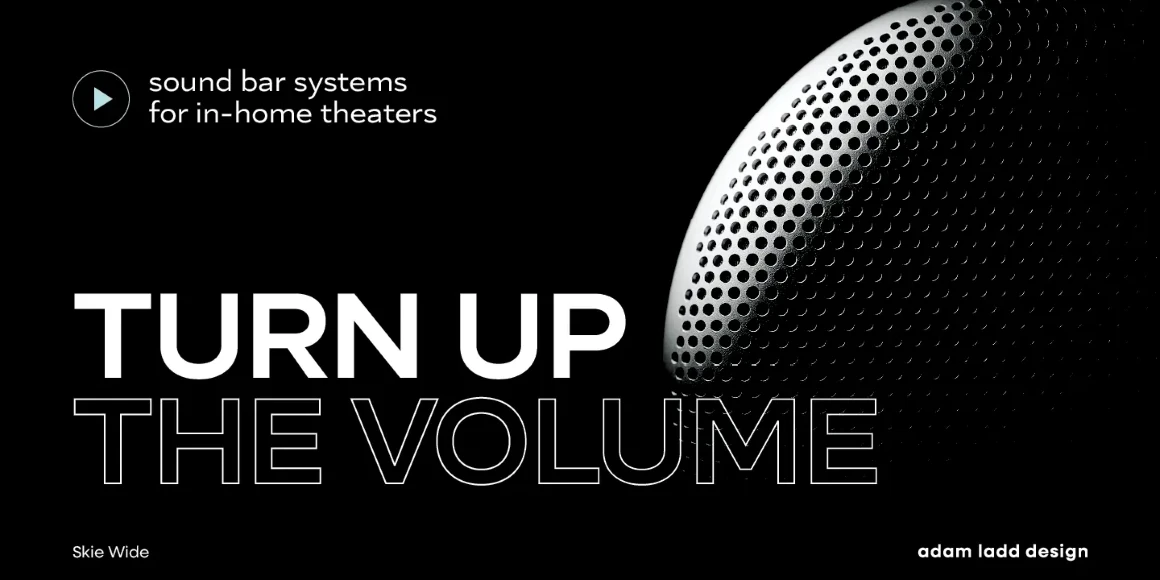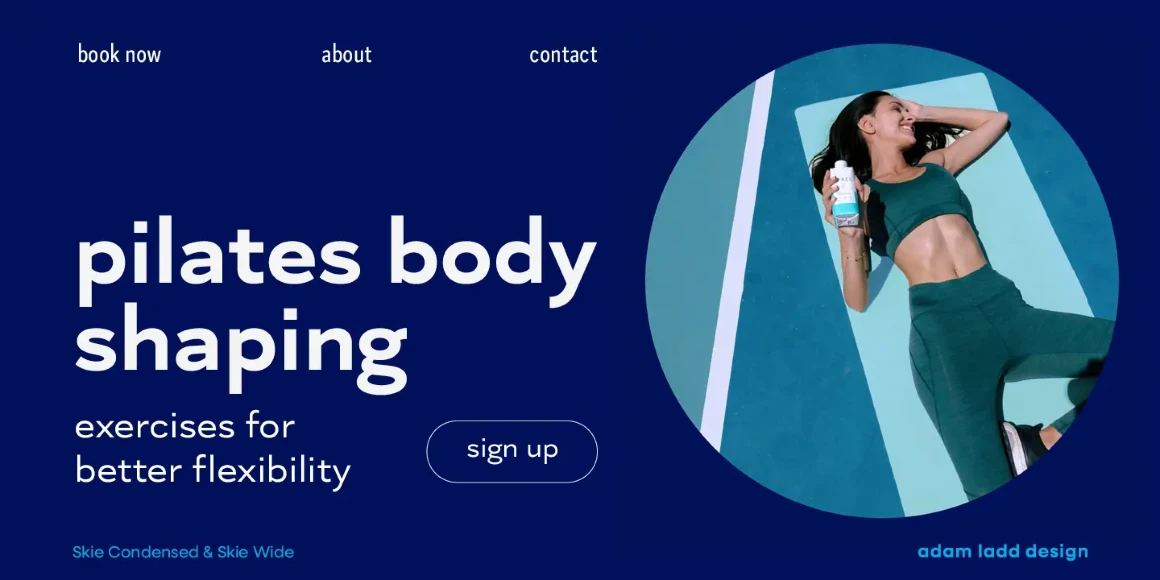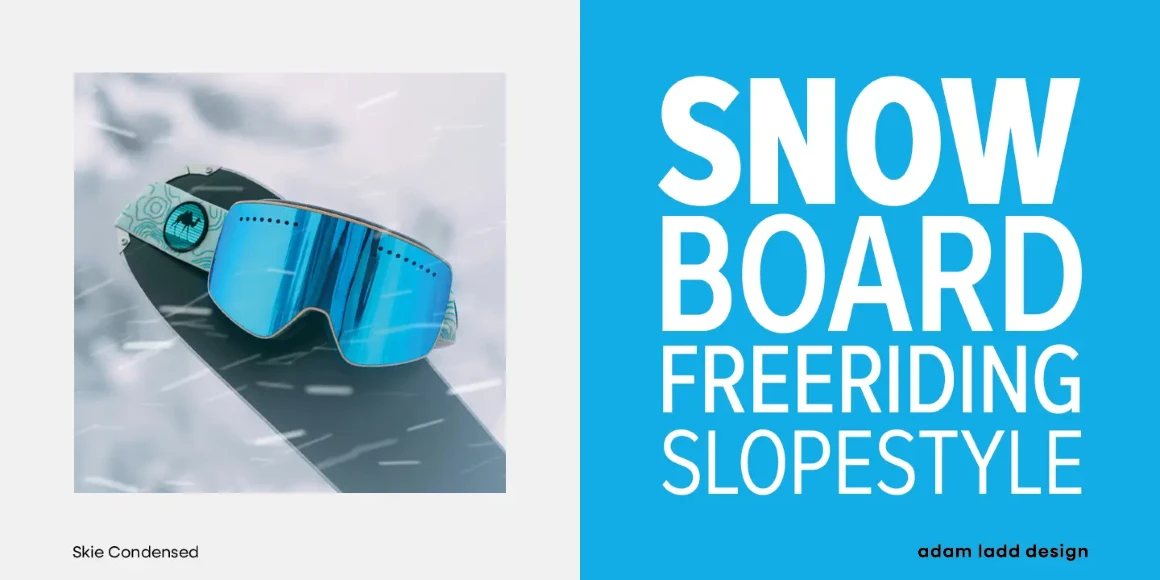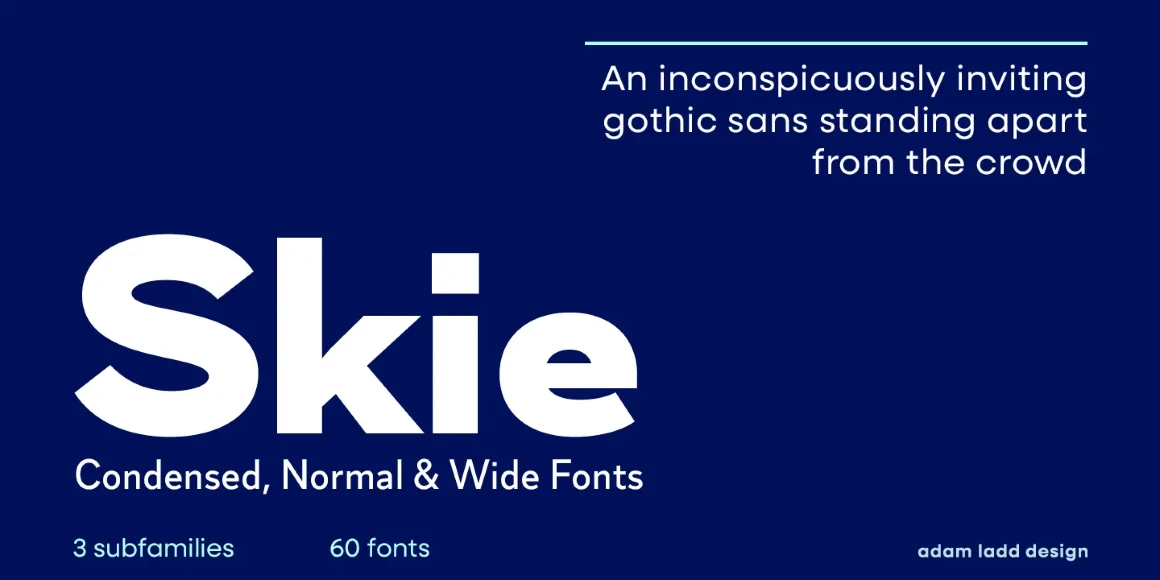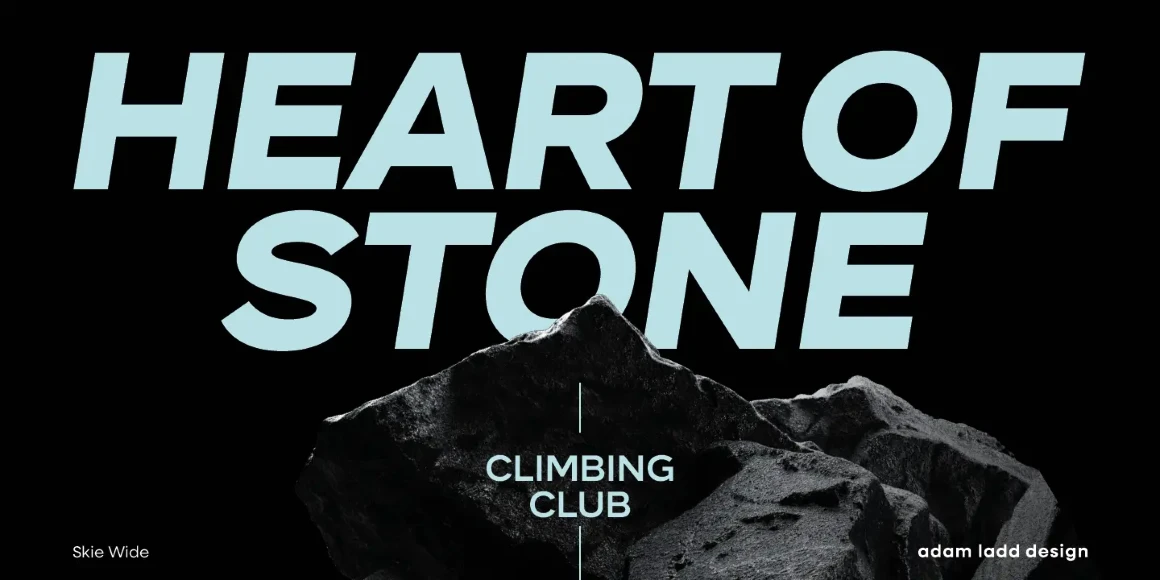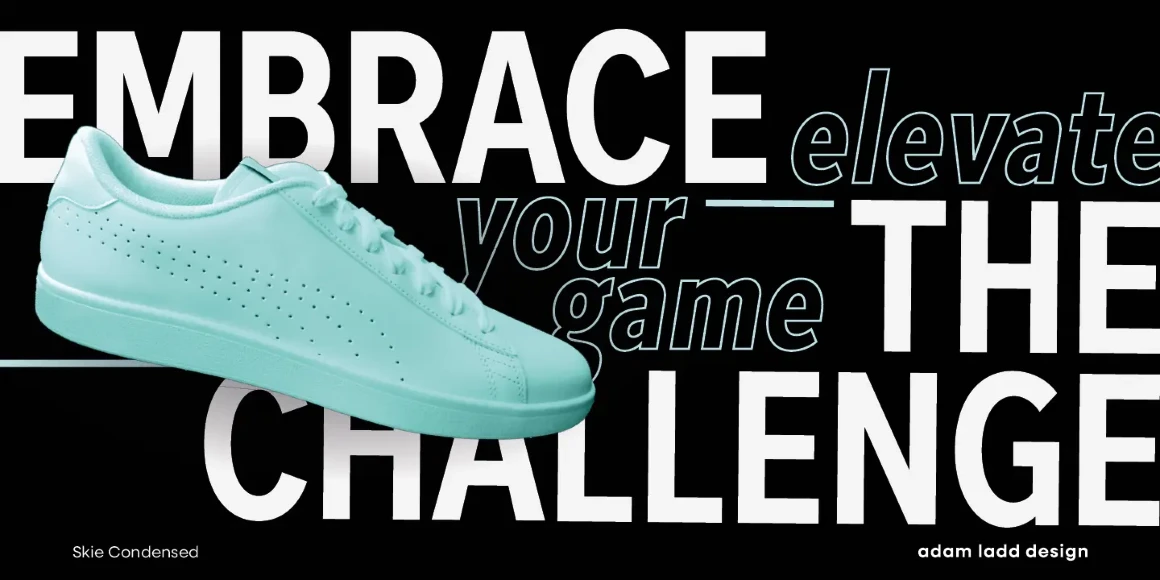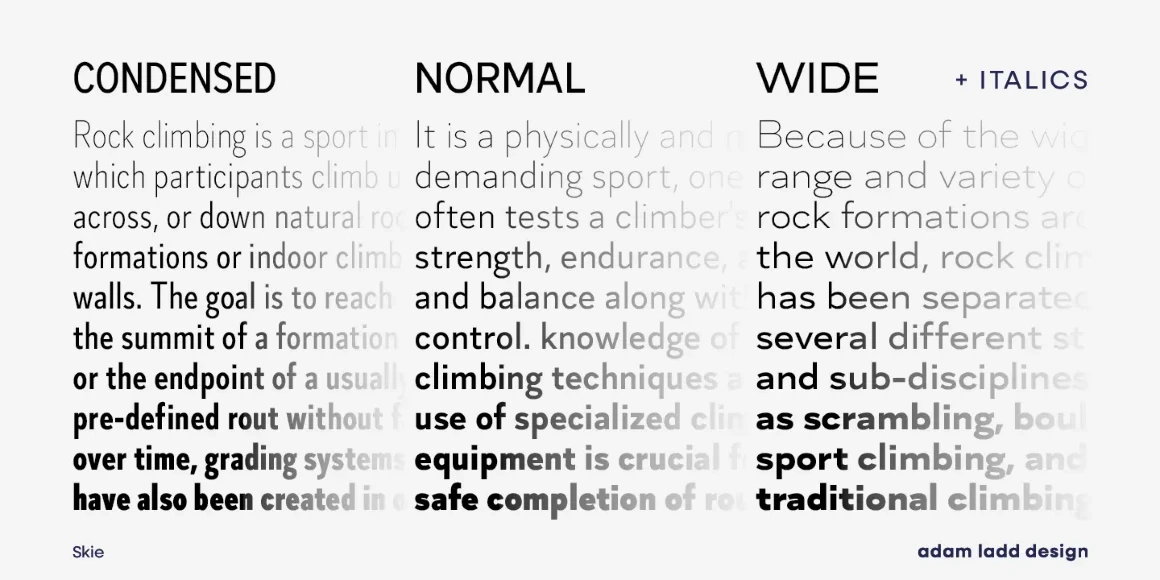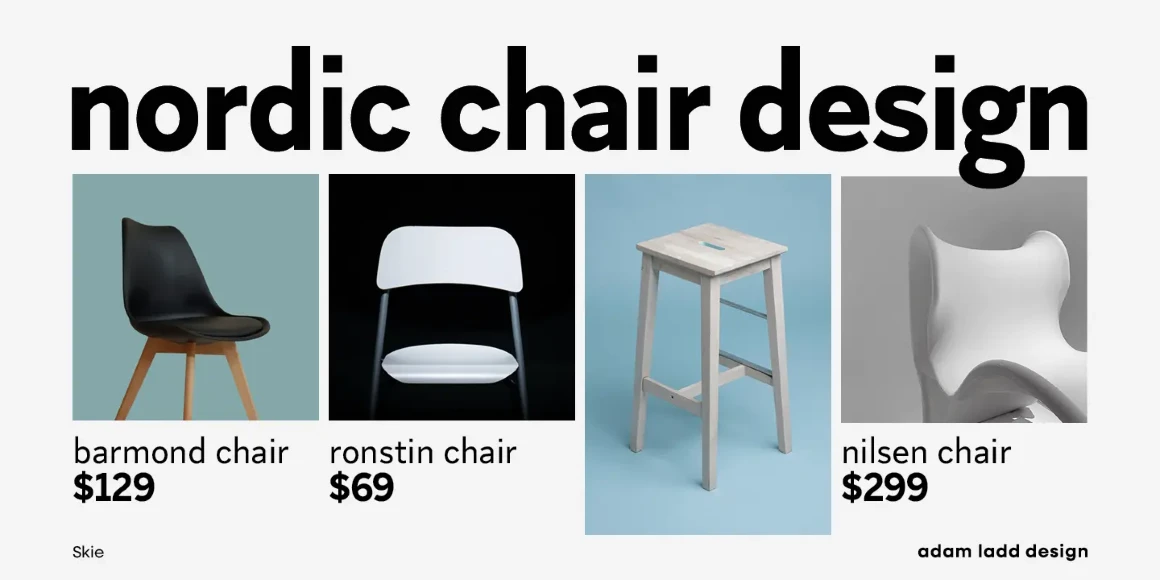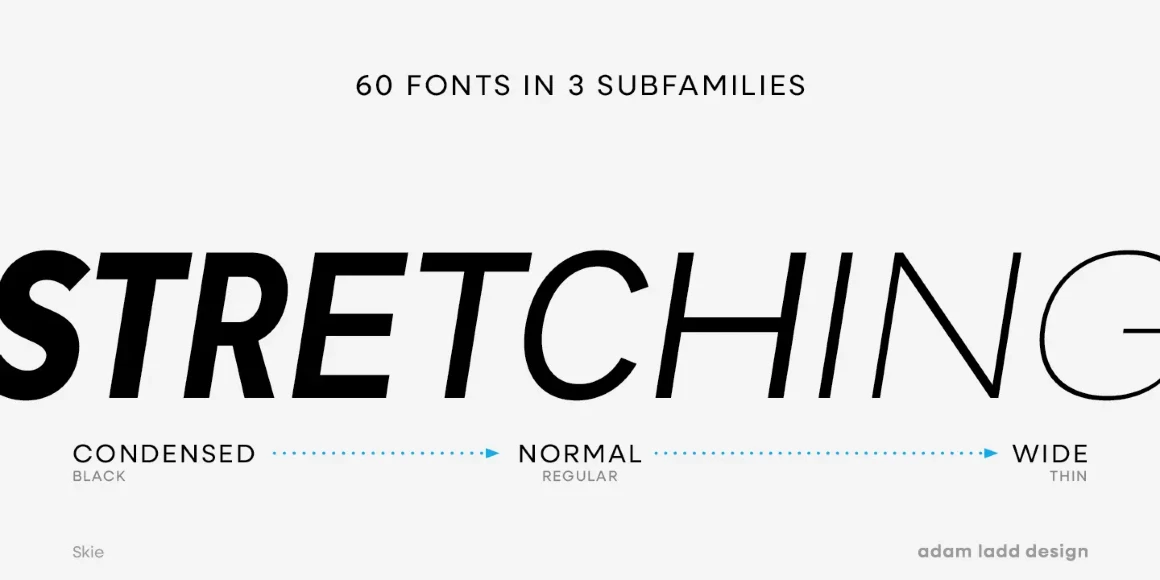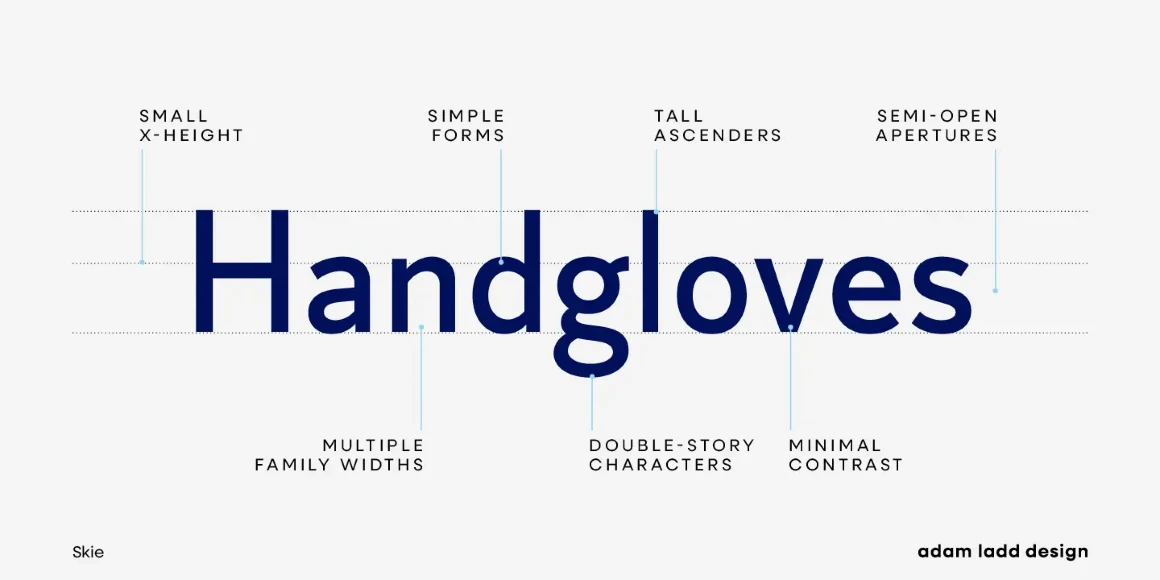
Skie
By Adam Ladd
Skie is an inconspicuously alluring gothic sans standing apart from the crowd. Considered a superfamily, it’s a hidden gem full of branding, publishing, and marketing potential. The straightforward design achieves a neutral appearance, blending modern aesthetics with a hint of revived charm. The comprehensive Skie family has 60 fonts distributed and 10 weights per family: normal, condensed, and wide, including italics. Skie is the right choice to achieve your intended visual communication goals.